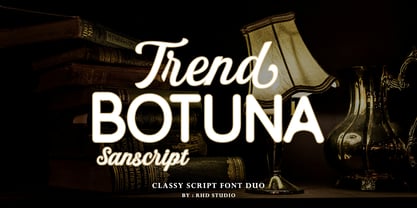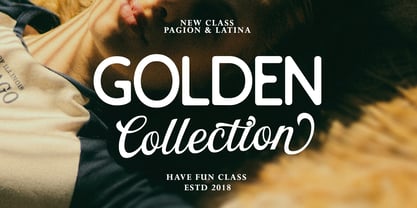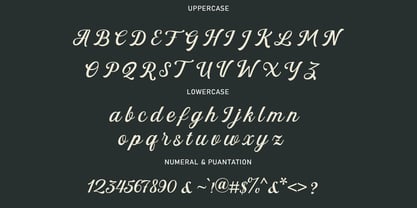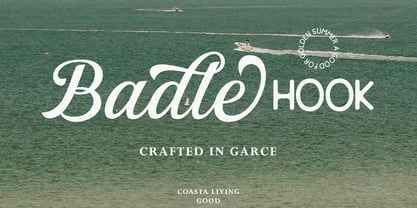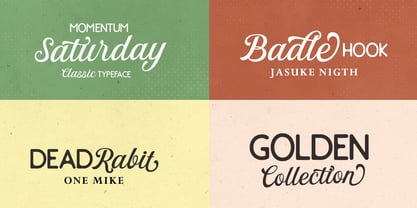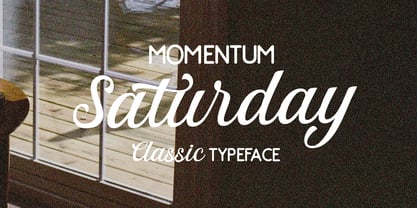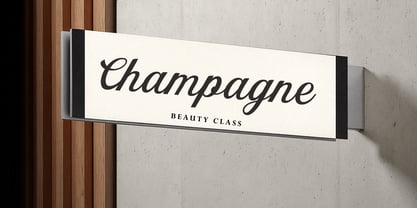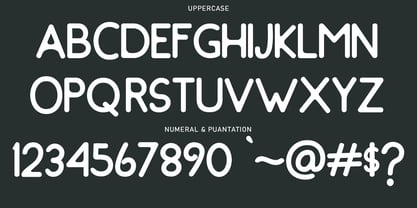
Trend Botuna sans
The Trend Botuna sans Font Family was designed by Rahmad Rizky and published by Rhd Studio. Trend Botuna sans contains 2 styles and family package options. More about this family
Trend Botuna Sanscript is a classy font duo that perfectly blends a bold sans with a flowing script, creating a harmonious balance between strength and elegance. Inspired by mid-century retro design and vintage signage, this font brings a playful yet nostalgic vibe to any project. Perfect for: Branding & Logos Posters & Headlines Product Packaging Editorial Design Retro & Modern Typography With its versatile combination, Trend Botuna Sanscript adds a stylish nostalgic touch while keeping your design fresh and impactful.